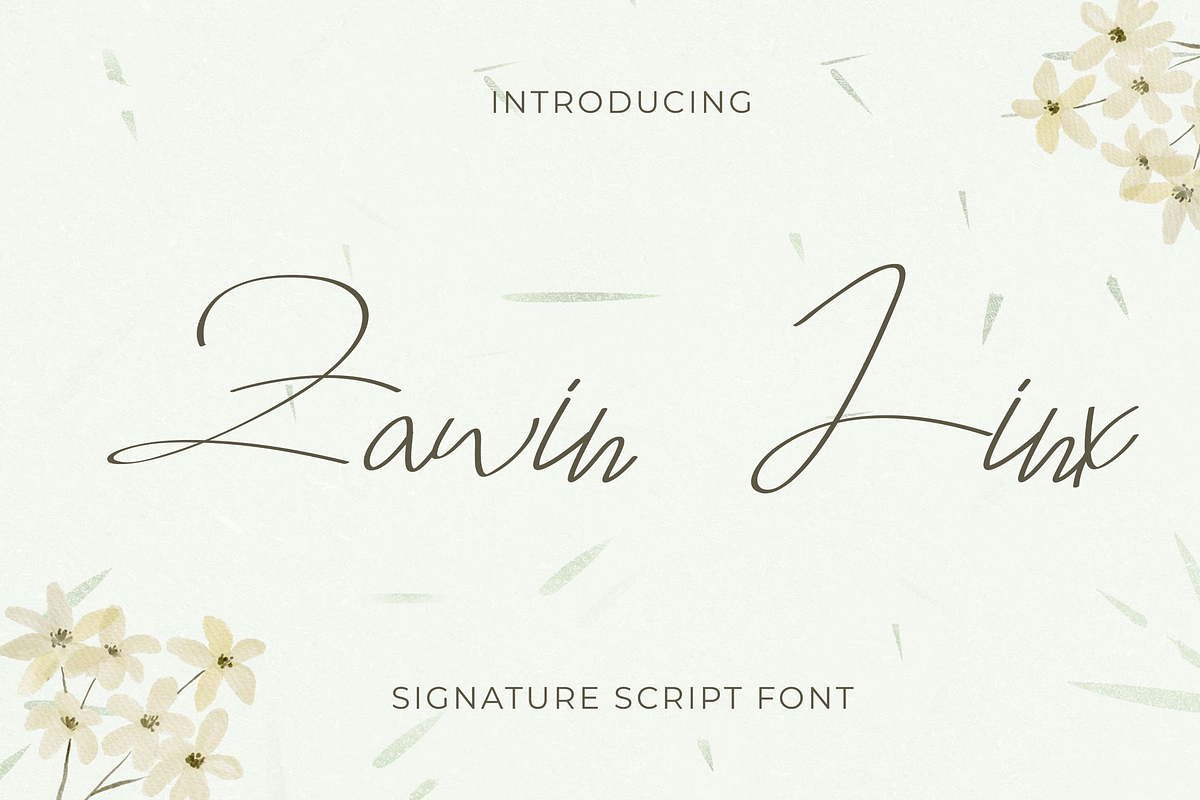
Zawin Linx is an elegant script font that emulates natural handwriting with its flowing, cursive style and interconnected letters. This font exudes sophistication and is well-suited for projects requiring a personal touch, such as wedding invitations, personal branding, and artistic endeavors.
• Handwritten Elegance: Zawin Linx offers a cursive, handwritten style with smooth, flowing strokes, giving your designs a refined and personal feel.
• Versatile Application: Ideal for a variety of projects including logos, invitations, personal branding, and artistic creations that seek an elegant and personal touch.
• Multilingual Support: The font supports over 194 languages, enhancing its usability across different regions and projects.